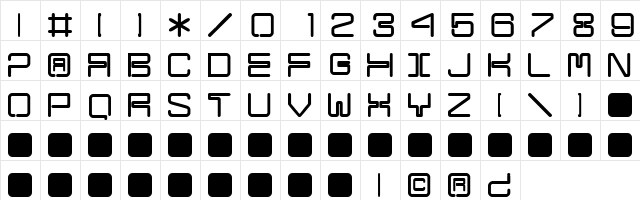
ARIA Medium
Design Context for ARIA Typeface
ARIA offers clean, dependable letterforms without strong stylistic allegiance, making it a practical choice for designers who need flexibility.